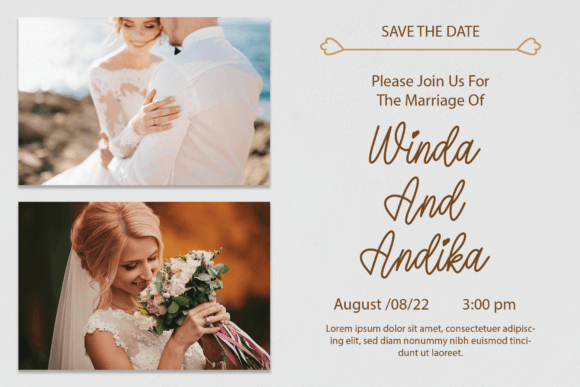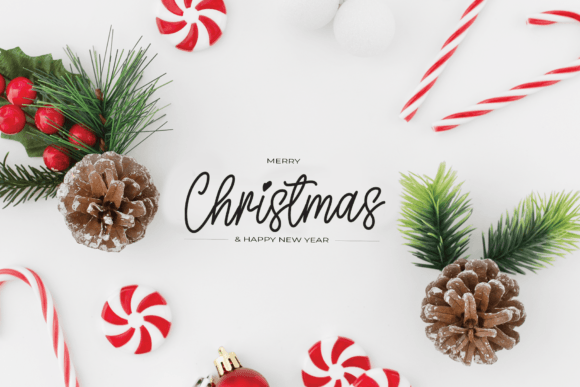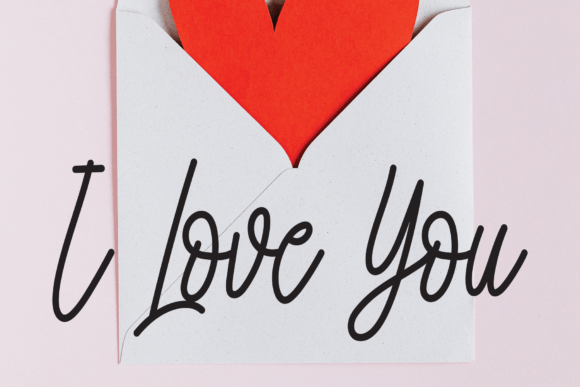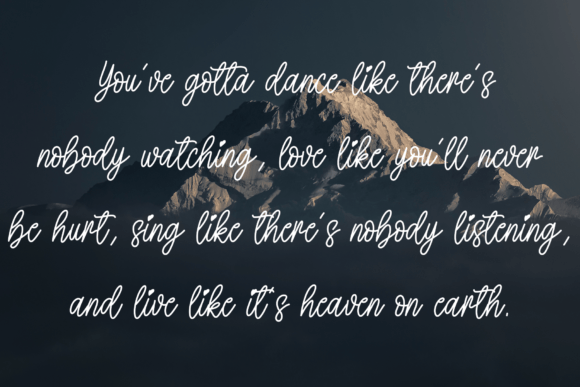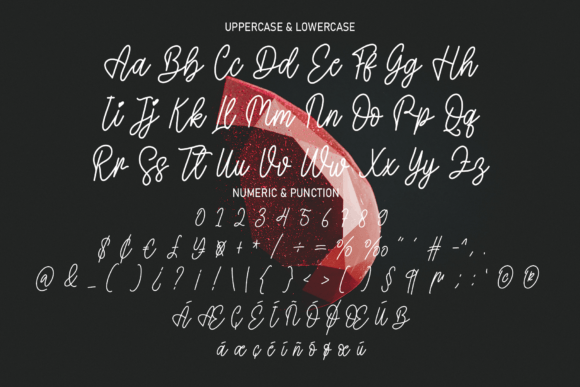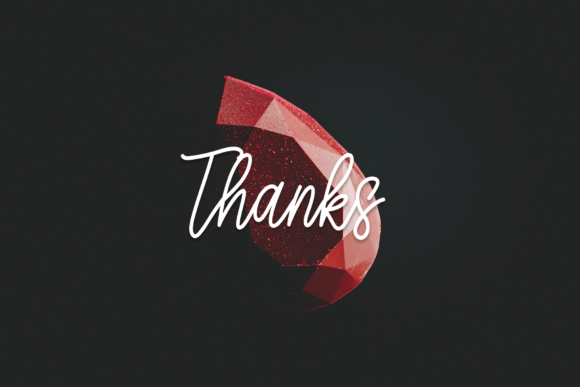
Diamond Font: A Dazzling Script Font to Elevate Your Creations
In the world of typography, a good font can make all the difference in the success of a design project. Whether you’re a graphic designer, a crafty DIY enthusiast, or a digital artist, having the right font in your arsenal can elevate your creations from ordinary to extraordinary. That’s where the Diamond Font comes in – a stunning script font that is sure to dazzle and delight. In this article, we’ll take a closer look at the Diamond Font, its features, and how it can enhance your font library.
What is Diamond Font?
Diamond Font is a beautifully crafted script font that exudes elegance and sophistication. With its intricate details and neat design, this font is perfect for a wide range of applications, from wedding invitations and branding materials to digital art and craft projects. The Diamond Font is designed to add a touch of luxury and glamour to any creation, making it an excellent addition to your font library.
Key Features of Diamond Font
- Highly detailed design: The Diamond Font boasts a highly detailed design that is sure to impress. Its intricate lines and curves make it a standout font that will add a touch of sophistication to any project.
- Neatly crafted: The font is neatly crafted to ensure that it looks great in any size or format. Whether you’re using it for a large-scale design project or a small craft project, the Diamond Font will always look great.
- Versatile: The Diamond Font is versatile and can be used for a wide range of applications, from formal events to digital art and craft projects.
- Easy to read: Despite its intricate design, the Diamond Font is easy to read, making it perfect for body text and headlines.
How to Use Diamond Font
The Diamond Font is incredibly easy to use and can be incorporated into a wide range of design projects. Here are a few ideas to get you started:
- Wedding invitations: The Diamond Font is perfect for wedding invitations, adding a touch of elegance and sophistication to your design.
- Branding materials: Use the Diamond Font to create stunning branding materials, such as logos, business cards, and letterheads.
- Digital art: The Diamond Font is a great addition to any digital art project, adding a touch of luxury and glamour to your designs.
- Craft projects: The Diamond Font is perfect for craft projects, such as card making, scrapbooking, and DIY gifts.
Benefits of Using Diamond Font
There are many benefits to using the Diamond Font in your design projects. Here are a few:
- Unique and eye-catching: The Diamond Font is a unique and eye-catching font that will set your designs apart from the crowd.
- Elegant and sophisticated: The font adds a touch of elegance and sophistication to any design project, making it perfect for formal events and luxury brands.
- Versatile: The Diamond Font is versatile and can be used for a wide range of applications, making it an excellent addition to your font library.